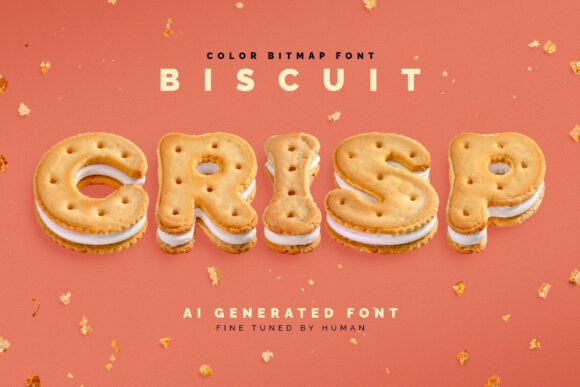
Introducing Biscuit Crisp: The Deliciously Crunchy Font That’s a Game-Changer for Designers
Have you ever been in the middle of a design project, and suddenly, you’re stuck on finding the perfect font? I recall a recent experience where I was working on a branding project for a bakery, and I just couldn’t find a font that captured the playful, crunchy essence of their products. That’s when I stumbled upon Biscuit Crisp, a font that’s literally shaped like sandwich cookies. In this article, I’ll share my journey with Biscuit Crisp, its features, and how you can make the most of it in your designs.
A Personal Encounter with Biscuit Crisp
I was immediately drawn to Biscuit Crisp’s unique charm. The font was created using cutting-edge generative AI technology and fine-tuned manually to give it a more human touch. This blend of technology and craftsmanship results in a font that’s not only visually appealing but also highly functional.
What Makes Biscuit Crisp Special?
Biscuit Crisp is a color bitmap OpenType-SVG font that you can use just like any standard OTF font. It comes with full-resolution PNG files with transparent backgrounds, perfect for various design applications. Here are some key features:
- ✨ **Unique Design**: Letters shaped like sandwich cookies
- ⚠️ **Language Support**: Currently supports only the English language and basic punctuation
What I Love About Biscuit Crisp
- ✨ **Playful Aesthetic**: The cookie-shaped letters add a fun, whimsical touch to any design
- ✅ **High Versatility**: Suitable for a wide range of projects, from branding to social media graphics
- 🤔 **Limited Language Support**: Only supports English and basic punctuation, which might limit its use for multilingual projects
The Backstory of Biscuit Crisp
Biscuit Crisp was born out of a desire to create a font that’s both fun and functional. The designer, inspired by the joy of baking and the aesthetics of sandwich cookies, used AI technology to craft a unique font that’s sure to delight. The result is a font that’s not only visually appealing but also highly versatile.
Q: Does Biscuit Crisp support multiple languages?
A: Currently, Biscuit Crisp supports only the English language and basic punctuation.